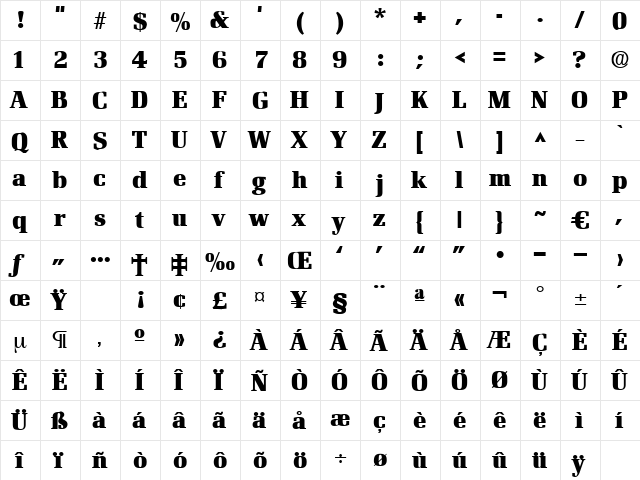
FrenchcarDemiBold Regular
Design Context for FrenchcarDemiBold Typeface
FrenchcarDemiBold offers clean, dependable letterforms without strong stylistic allegiance, making it a practical choice for designers who need flexibility. Its bold stroke weight gives it real presence on the page.